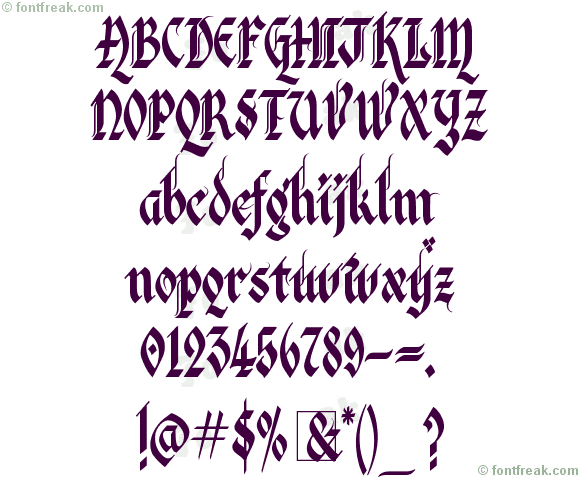
Kingthings Italique
About Kingthings Italique
Kingthings Italique, created by Kevin King in 2003, is a striking display font that falls into the category of decorative serif typefaces. With its distinctive calligraphic style, this font exudes a sense of elegance and grandeur, making it an excellent choice for projects that require a touch of sophistication. The font features a medium stroke weight with sharp contrasts, providing a dynamic visual appeal. The spacing is well-balanced, allowing for easy readability while maintaining the font's artistic flair. Additionally, Kingthings Italique showcases unique decorative elements, such as elongated ascenders and descenders, which enhance its ornate character.
This font is particularly well-suited for a variety of creative applications. It shines in wedding invitations, where its luxurious style can convey romance and elegance. Movie posters can also benefit from the font's dramatic flair, making titles stand out and capture viewers' attention. Restaurant menus featuring this font can elevate the dining experience, lending an air of sophistication to the presentation. Additionally, it can serve as an eye-catching logo for small businesses looking to establish a unique brand identity.
What sets Kingthings Italique apart is its ability to blend artistic expression with functionality. Its captivating design allows it to stand out in any context, making it a valuable addition to any designer's toolkit. Whether for formal invitations or eye-catching promotional materials, this font consistently delivers an outstanding visual impact.